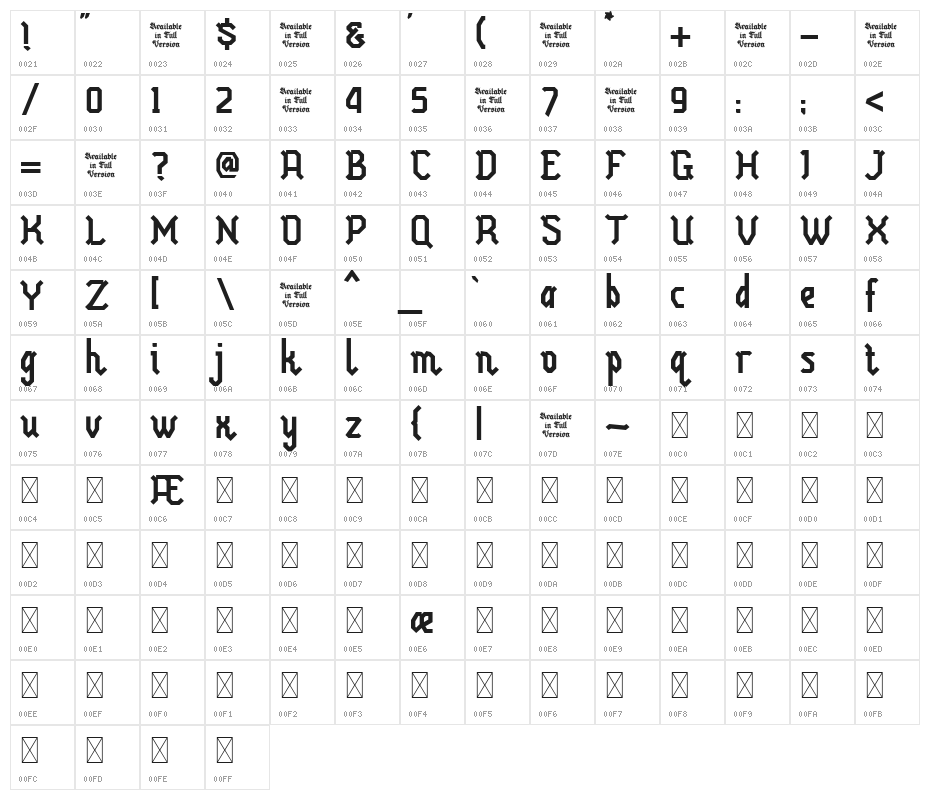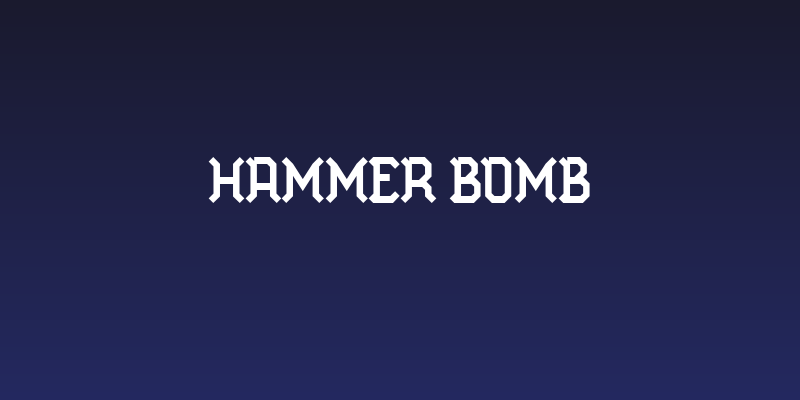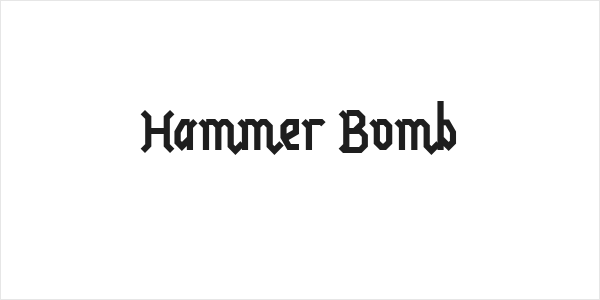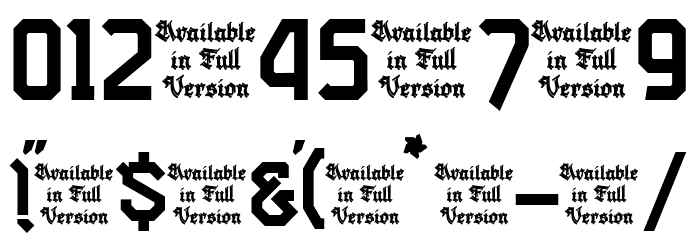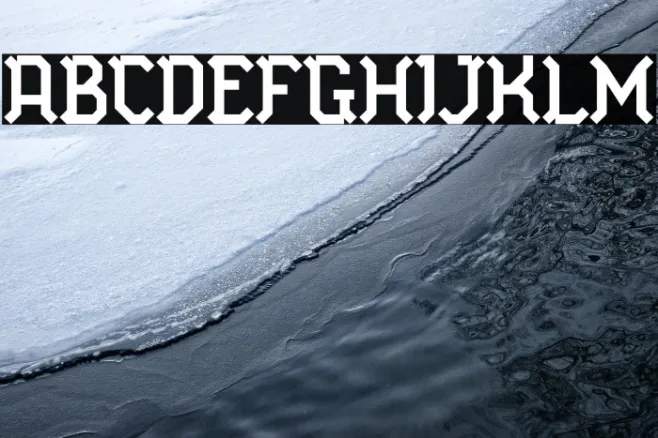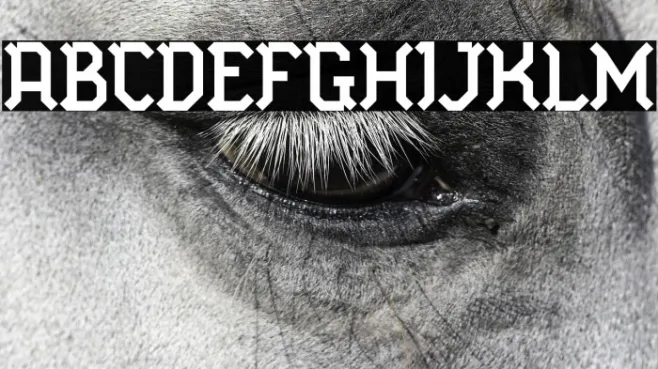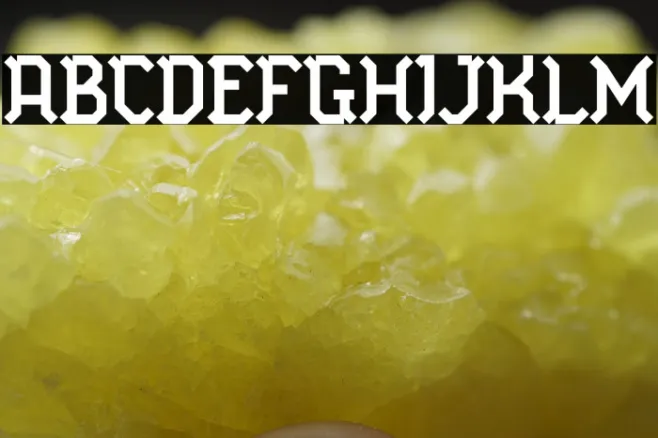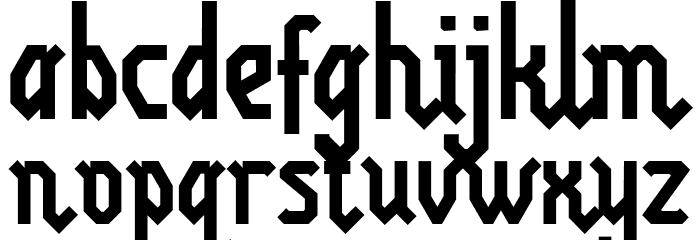
Hammer Bomb Font
Hammer Bomb Description
This font features a bold and angular design, reminiscent of industrial or mechanical aesthetics. The characters are constructed with sharp, geometric edges and a blocky appearance, giving it a strong and commanding presence. The uppercase and lowercase letters maintain a consistent style, with the uppercase being slightly more pronounced. The numbers and special characters follow the same design principles, ensuring uniformity across the font. This font's unique style makes it stand out, suitable for projects that require a bold statement.
| Overall Style | Modern, Industrial |
| Proposed Projects | Ideal for use in posters, logos, video game titles, or any project requiring a bold, industrial look. |